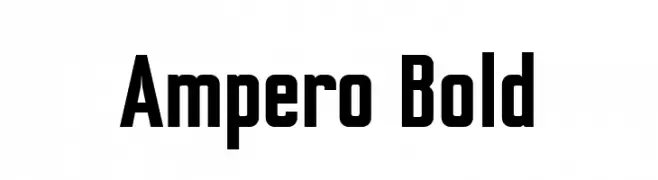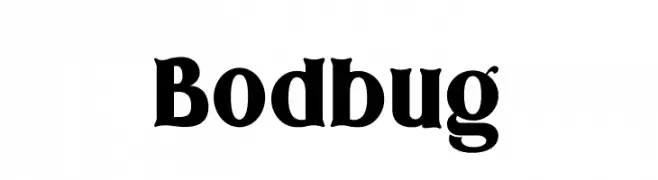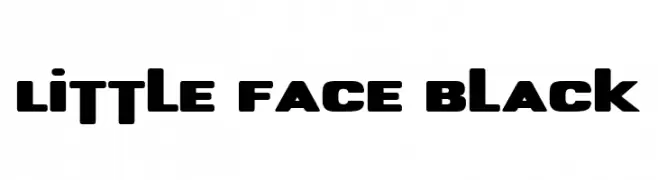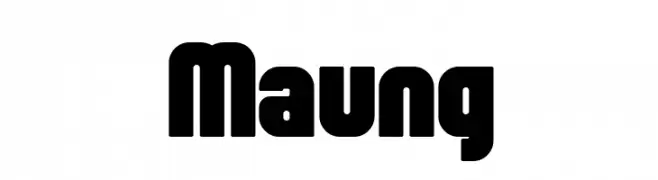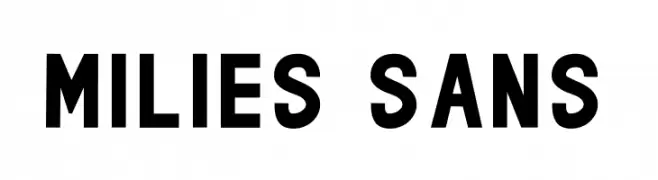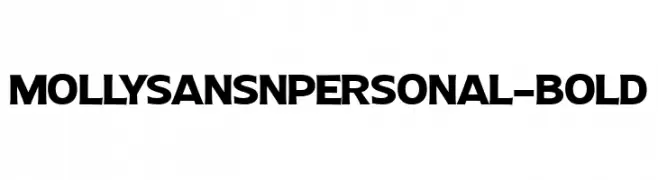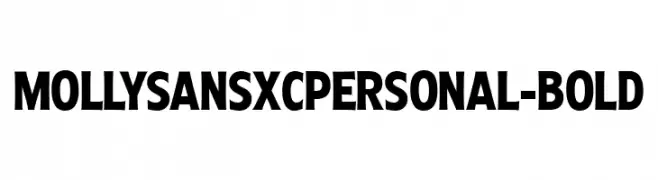
A bold, condensed font with a modern and impactful style.
A bold, high-contrast font with a dynamic and impactful style.
A bold, condensed font ideal for impactful designs.
A bold, dynamic font with thick strokes and unique serifs, perfect for impactful designs.
A bold, dramatic font with sharp angles and smooth curves, perfect for impactful designs.
A bold, blocky font with thick characters and a strong visual impact.
A bold, blocky font with tight spacing and a modern, impactful style.
A bold, geometric font with strong, thick strokes for a modern and impactful look.
A tall, narrow font with a modern and sophisticated design, perfect for impactful headlines.
A bold, geometric sans-serif font with a modern and impactful style.